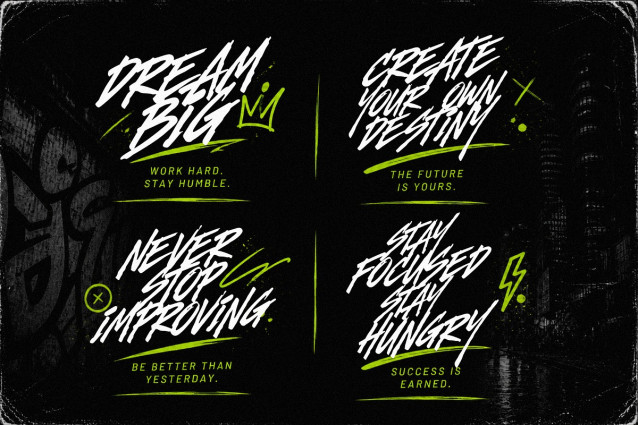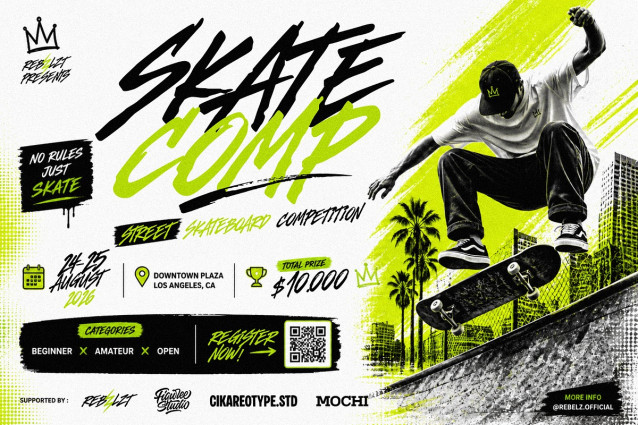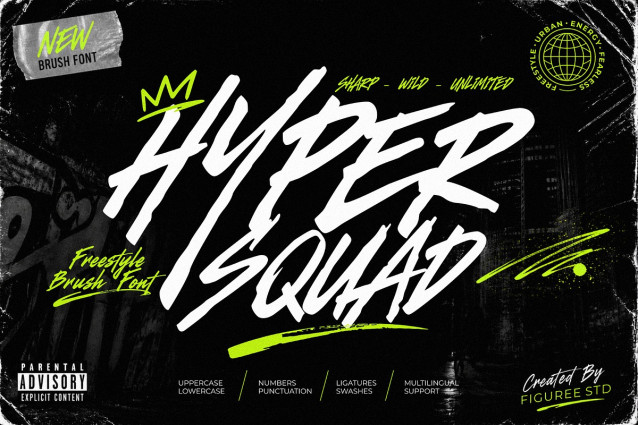
Hyper Squad – Freestyle Brush Font
Hyper Squad – Freestyle Brush Font is designed to bring natural movement and expressive energy into your typography. Inspired by hand-painted strokes, this font delivers an organic brush style that feels spontaneous and full of character. It works well for projects that require a strong visual voice, such as posters, headlines, social media graphics, and creative layouts.
With both uppercase and lowercase characters, Hyper Squad provides flexibility for building dynamic compositions. The variation between letters creates a natural rhythm, making your text feel less rigid and more alive. Combined with ligatures and extra swash elements, you can easily enhance your typography with fluid connections and extended strokes that add personality without extra effort.
This font is suitable for a wide range of creative needs. Whether you are designing bold titles, promotional visuals, video thumbnails, or digital content, Hyper Squad helps you create lettering that stands out clearly. Its brush texture gives a handcrafted impression while maintaining readability across different sizes and formats.